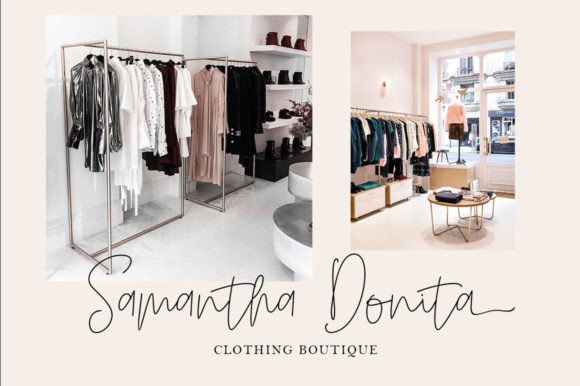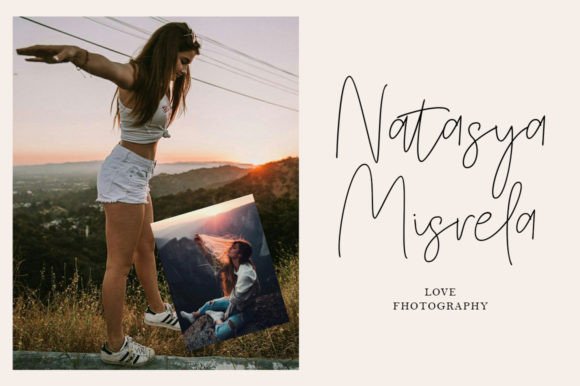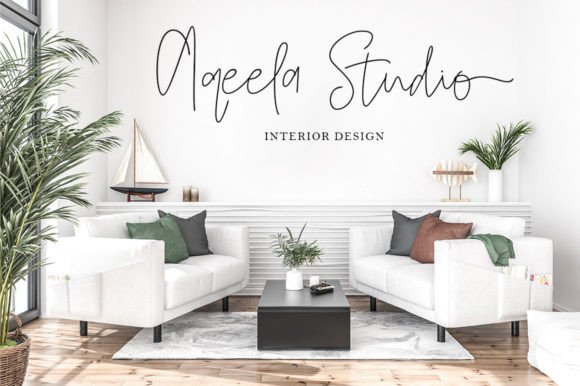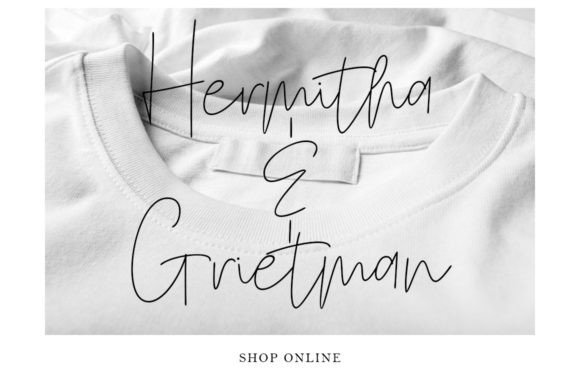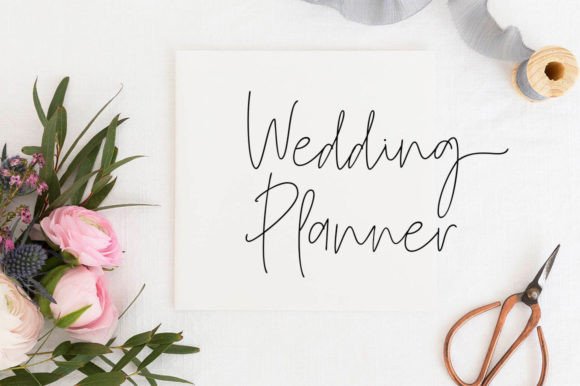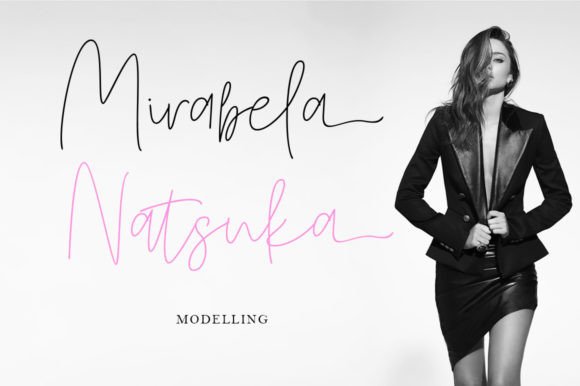
Discover the Best Monthea Font: Elevate Your Designs with Elegance and Style
In the world of typography, fonts play a crucial role in conveying messages, expressing creativity, and capturing the essence of a brand or design. Among the numerous fonts available, the Best Monthea font stands out for its unique blend of natural flow and stylish sophistication. This signature font is perfect for a wide range of projects, from logos and branding to wedding designs, social media posts, and product packaging. In this article, we’ll explore the features, benefits, and uses of the Best Monthea font, helping designers and crafters make the most of this versatile typeface.
What Makes Best Monthea Font Special?
The Best Monthea font boasts a distinctive, hand-crafted appearance that sets it apart from more traditional fonts. Its natural flow and stylish curves make it an excellent choice for designs that require a touch of elegance and sophistication. Whether you’re working on a logo, invitation, or social media post, this font is sure to elevate your design and leave a lasting impression.
Key Features of Best Monthea Font
- Unique Signature Style: Best Monthea features a distinctive, hand-crafted signature style that adds a personal touch to any design.
- Natural Flow: The font’s natural flow and curves create a sense of movement and fluidity, making it perfect for designs that require a dynamic feel.
- Stylish Sophistication: Best Monthea exudes elegance and sophistication, making it suitable for high-end brands, wedding designs, and special events.
- Versatility: This font can be used for a wide range of projects, from logos and branding to social media posts, product packaging, and more.
Best Uses for Best Monthea Font
The Best Monthea font is incredibly versatile, making it suitable for various design projects. Here are some of the best uses for this font:
- Logos and Branding: Create a lasting impression with a unique and stylish logo that reflects your brand’s personality.
- Invitations and Stationery: Add a touch of elegance to your invitations, stationery, and greeting cards.
- Wedding Designs: Make your wedding designs, such as invitations, programs, and place cards, truly special with this beautiful font.
- Social Media Posts: Elevate your social media presence with stylish and engaging posts that showcase your brand’s personality.
- Product Packaging: Add a touch of sophistication to your product packaging and make your products stand out.
- Labels and Photography: Use Best Monthea for labels, photography watermarks, and other design elements that require a unique and stylish touch.
Tips for Using Best Monthea Font
To get the most out of the Best Monthea font, follow these tips:
- Pair with Complementary Fonts: Combine Best Monthea with complementary fonts to create a harmonious and visually appealing design.
- Experiment with Colors: Try out different colors and color combinations to find the perfect match for your design.
- Pay Attention to Spacing: Ensure that your text has sufficient spacing to maintain readability and visual flow.
- Use for Headings and Titles: Best Monthea is perfect for headings and titles, so use it to create a lasting impression.
The Best Monthea font is a versatile and stylish typeface that can elevate your designs and take them to the next level. With its unique signature style, natural flow, and stylish sophistication, this font is perfect for a wide range of projects. Whether you’re a designer, crafter, or simply someone who appreciates great typography, the Best Monthea font is sure to become a valuable addition to your design toolkit.